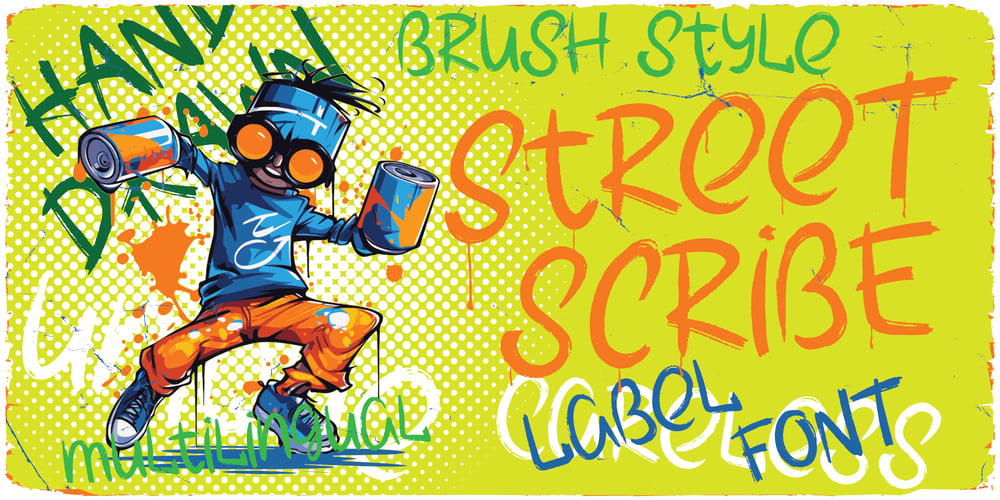
Street Scribe Font Family was designed by Oleg Voznyy and published by Vozzy. Street Scribe contains 2 styles and family package options. Introducing hand made label font named Street Scribe. This font family has an additional characters and multilungual support (check out all available characters on previews). Typeface has two styles Regular and Italic. This font will look good on any sport styled designs like a poster, T-shirt, label, logo, etc.